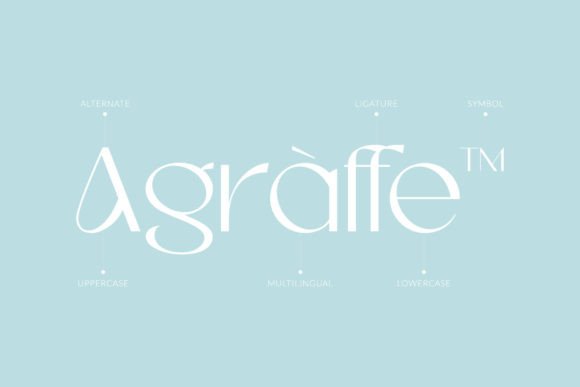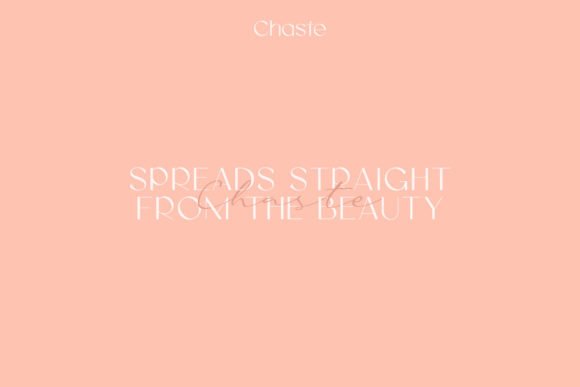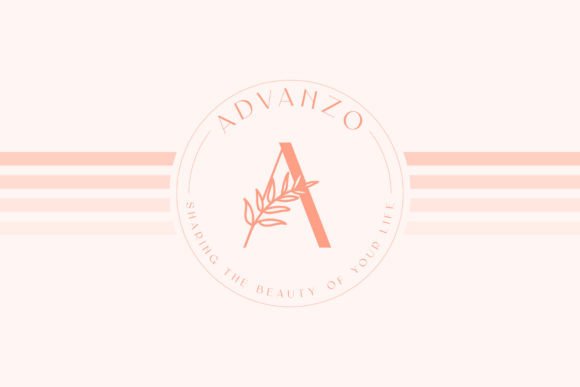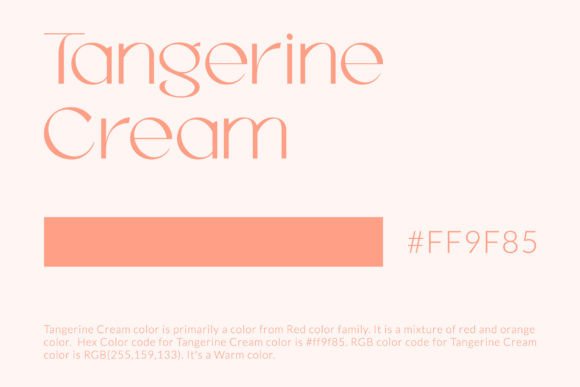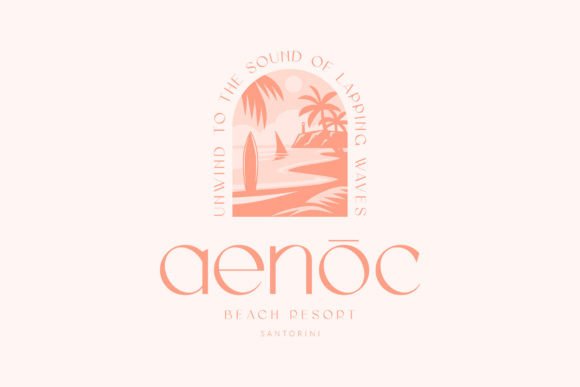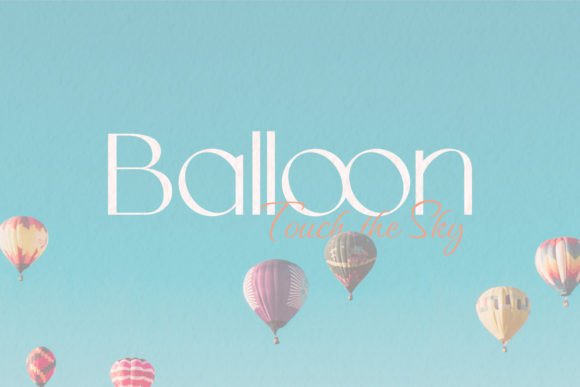
Introducing Chaste Font: Elevate Your Designs with Elegance and Sophistication
In the world of typography, fonts play a crucial role in conveying the message and aesthetic of a design. For designers and crafters seeking a stylish and elegant sans serif font, Chaste Font is an exceptional choice. Featuring clean lines, sharp edges, and oval combinations, Chaste exudes sophistication and uniqueness, making it suitable for a wide spectrum of applications.
What Makes Chaste Font Stand Out?
Chaste Font boasts a distinctive design that sets it apart from other sans serif fonts. Its clean lines and sharp edges give it a modern and sleek appearance, while the oval combinations add a touch of elegance and refinement. This font is perfect for designers who want to add a level of sophistication to their work, whether it’s for a branding project, website design, or crafting a beautiful piece of art.
Key Features of Chaste Font
- Clean Lines and Sharp Edges: Chaste Font features clean lines and sharp edges that give it a modern and sleek appearance.
- Oval Combinations: The oval combinations in Chaste add a touch of elegance and refinement, making it perfect for designs that require a level of sophistication.
- Sans Serif: As a sans serif font, Chaste is highly legible and perfect for digital and print designs.
- Unique and Sophisticated: Chaste’s unique design makes it stand out from other fonts, and its sophisticated style ensures that your designs will look elegant and refined.
Applications of Chaste Font
Chaste Font is versatile and can be used for a wide range of applications, including:
- Branding: Use Chaste Font to create a sophisticated brand identity that stands out from the competition.
- Website Design: Chaste is perfect for website design, as its clean lines and sharp edges make it highly legible on digital screens.
- Print Design: Chaste Font is also suitable for print design, including brochures, flyers, and business cards.
- Crafting: Crafters can use Chaste Font to add a touch of elegance to their projects, such as handmade cards, scrapbooking, and DIY crafts.
Why Choose Chaste Font?
With so many fonts available, why choose Chaste Font? Here are a few reasons:
- Unique Design: Chaste Font has a unique design that sets it apart from other fonts.
- Highly Legible: Chaste is highly legible, making it perfect for digital and print designs.
- Versatile: Chaste Font can be used for a wide range of applications, from branding to crafting.
- Elegant and Sophisticated: Chaste exudes elegance and sophistication, making it perfect for designers and crafters who want to add a level of refinement to their work.
Chaste Font is an exceptional choice for designers and crafters seeking a stylish and elegant sans serif font. Its clean lines, sharp edges, and oval combinations make it a sophisticated and unique font that is suitable for a wide spectrum of applications. Whether you’re working on a branding project, website design, or crafting a beautiful piece of art, Chaste Font is sure to elevate your designs with elegance and sophistication.